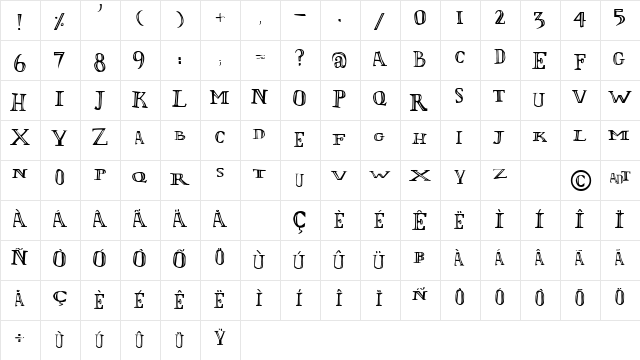
LOlivier Irregular Regular
Design Context for LOlivier Irregular Typeface
LOlivier Irregular is a composed and adaptable typeface that performs quietly and consistently across a wide range of design contexts.